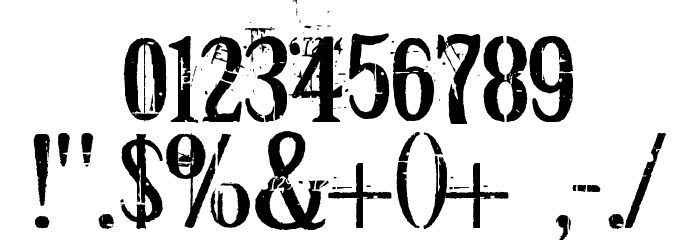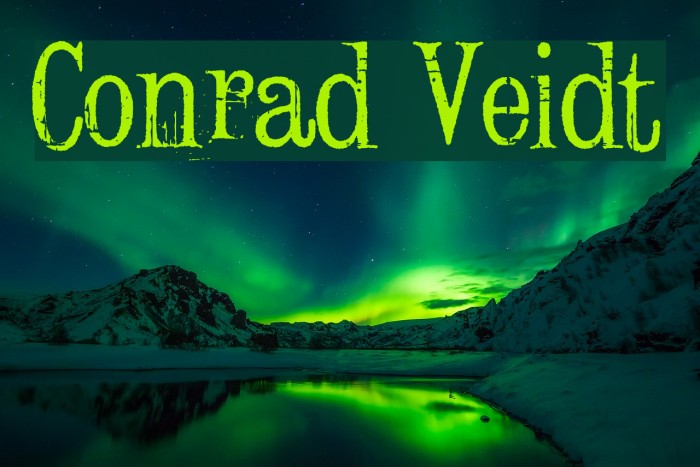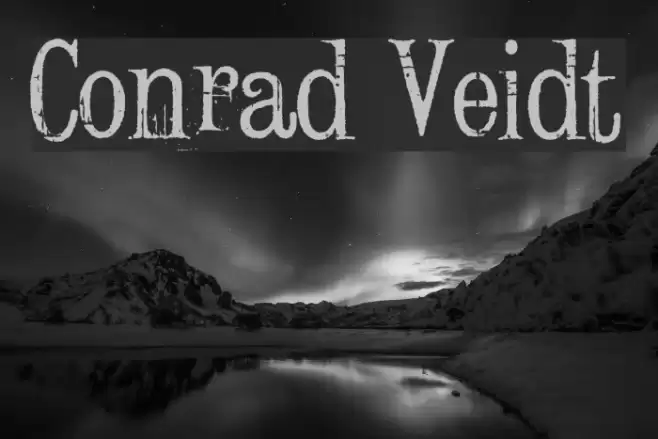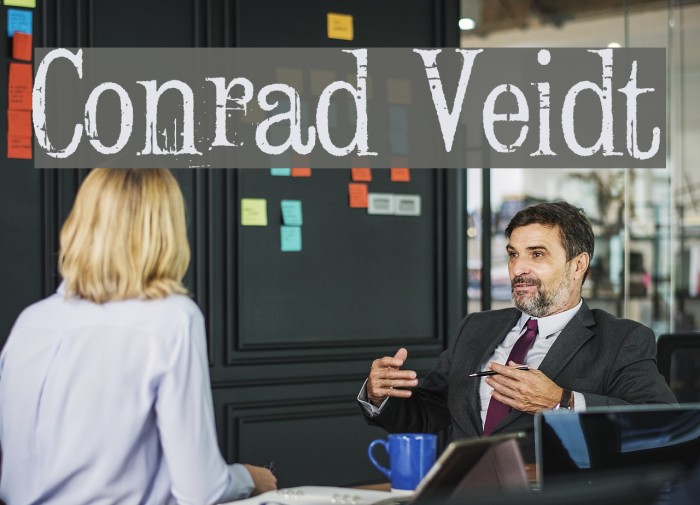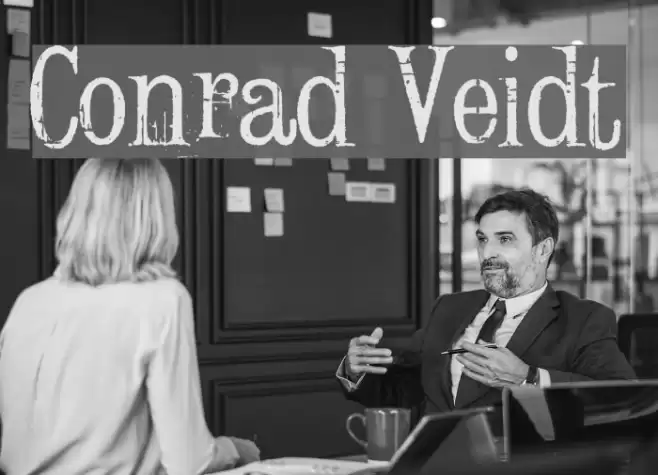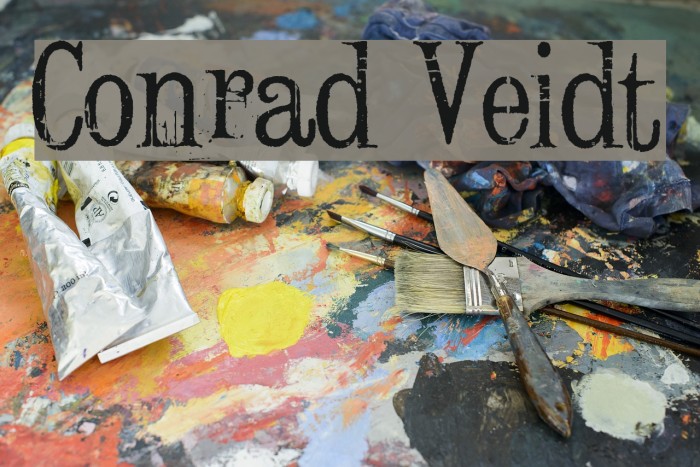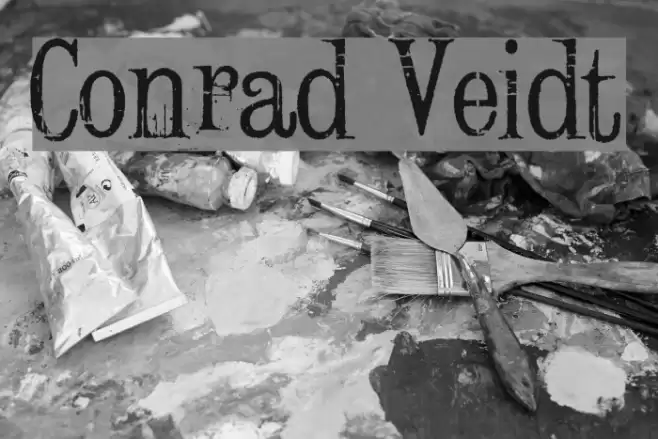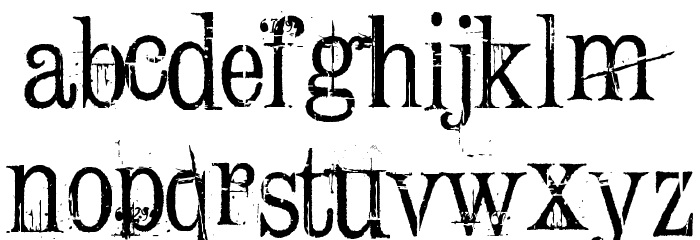
Conrad Veidt Font
Conrad Veidt Description
This font features a distressed, grunge aesthetic with a serif style that gives it a vintage and worn appearance. The characters are bold and have a rough texture, creating a sense of age and history. The uppercase and lowercase letters maintain a consistent style, with slightly irregular edges that enhance the distressed look. Numbers and special characters follow the same design, making the font cohesive across all elements. The overall impression is one of ruggedness and character, suitable for designs that aim to convey a sense of antiquity or edginess.
| Overall Style | Vintage |
| Proposed Projects | Ideal for vintage posters, album covers, book titles, and any design requiring a rugged, historical feel. |